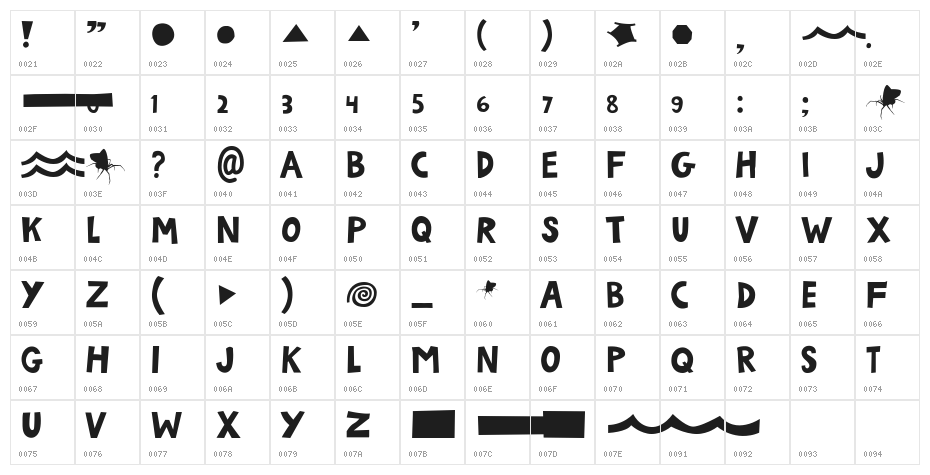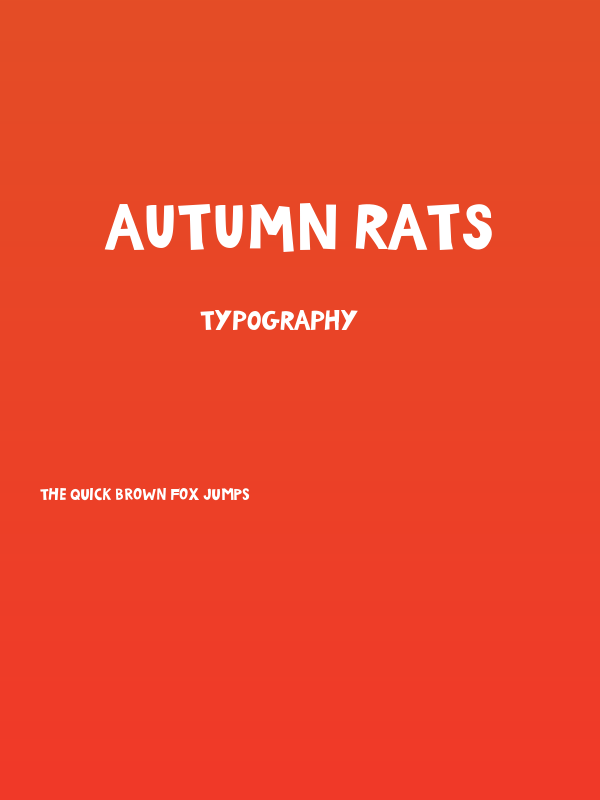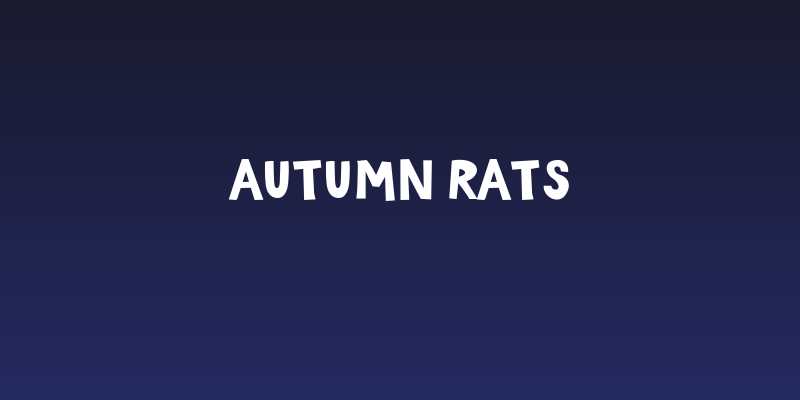
Autumn Rats Font
Autumn Rats Description
This font features a bold and playful design with a distinctively quirky and artistic flair. The characters are slightly irregular, giving them a hand-drawn appearance that adds a sense of whimsy and creativity. The uppercase letters are bold and prominent, while the lowercase letters maintain a consistent style with a slightly more compact form. The numbers are clear and easy to read, matching the playful aesthetic of the alphabet. Special characters are creatively designed, adding to the overall unique style of the font. This font is perfect for projects that require a fun and engaging visual element, making it ideal for creative branding, children's books, or artistic posters.
| Overall Style | Playful, Artistic, Quirky |
| Proposed Projects | Ideal for creative branding, children's books, artistic posters, and playful designs. |